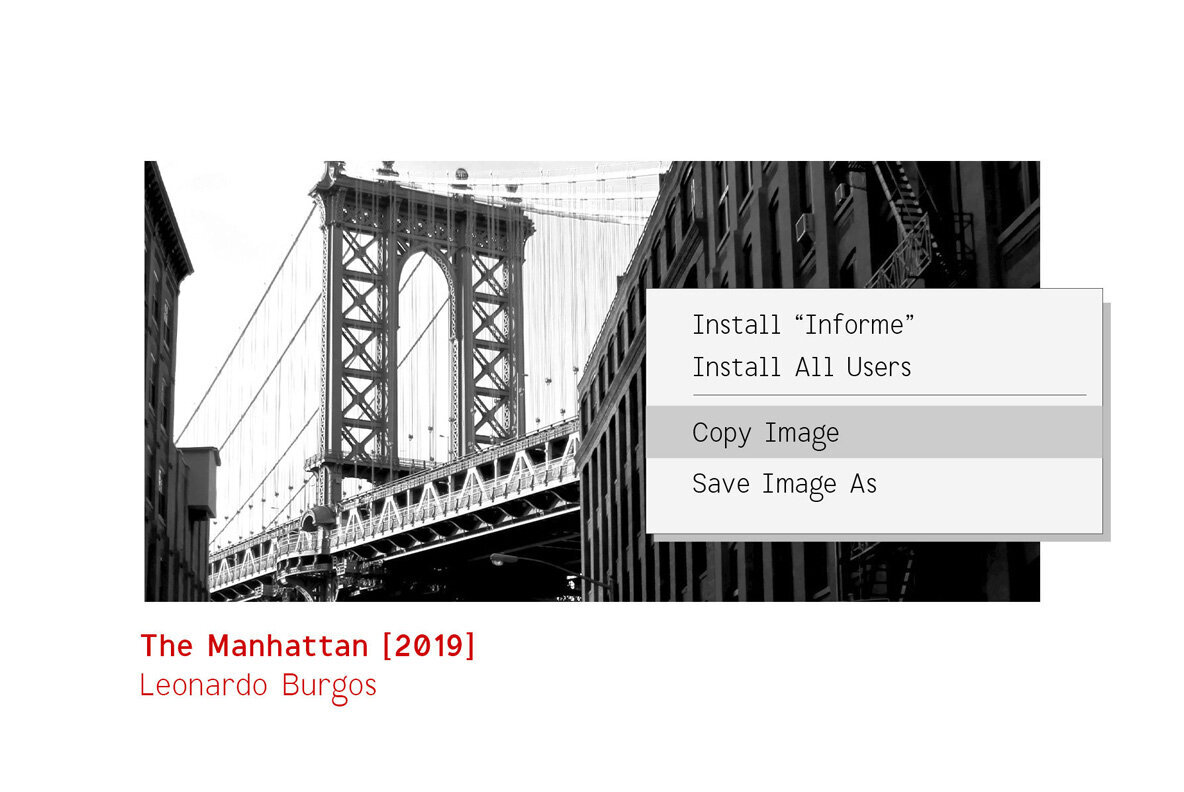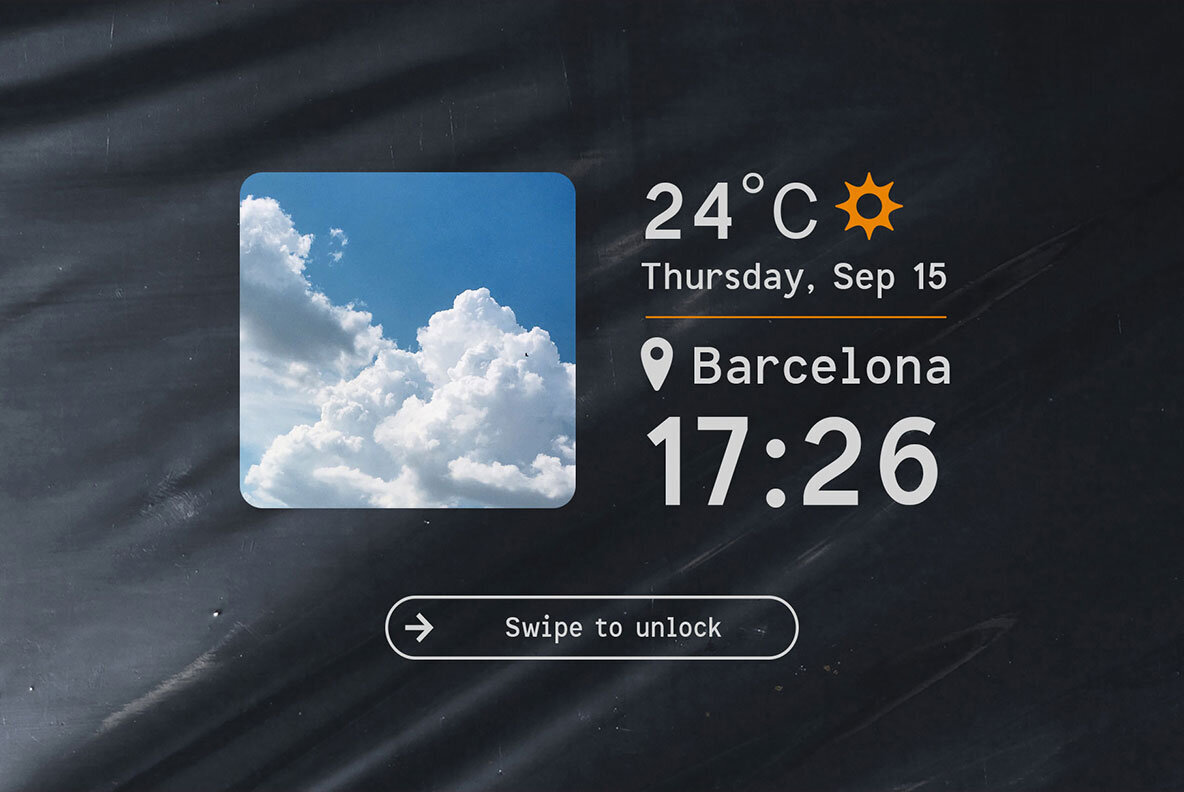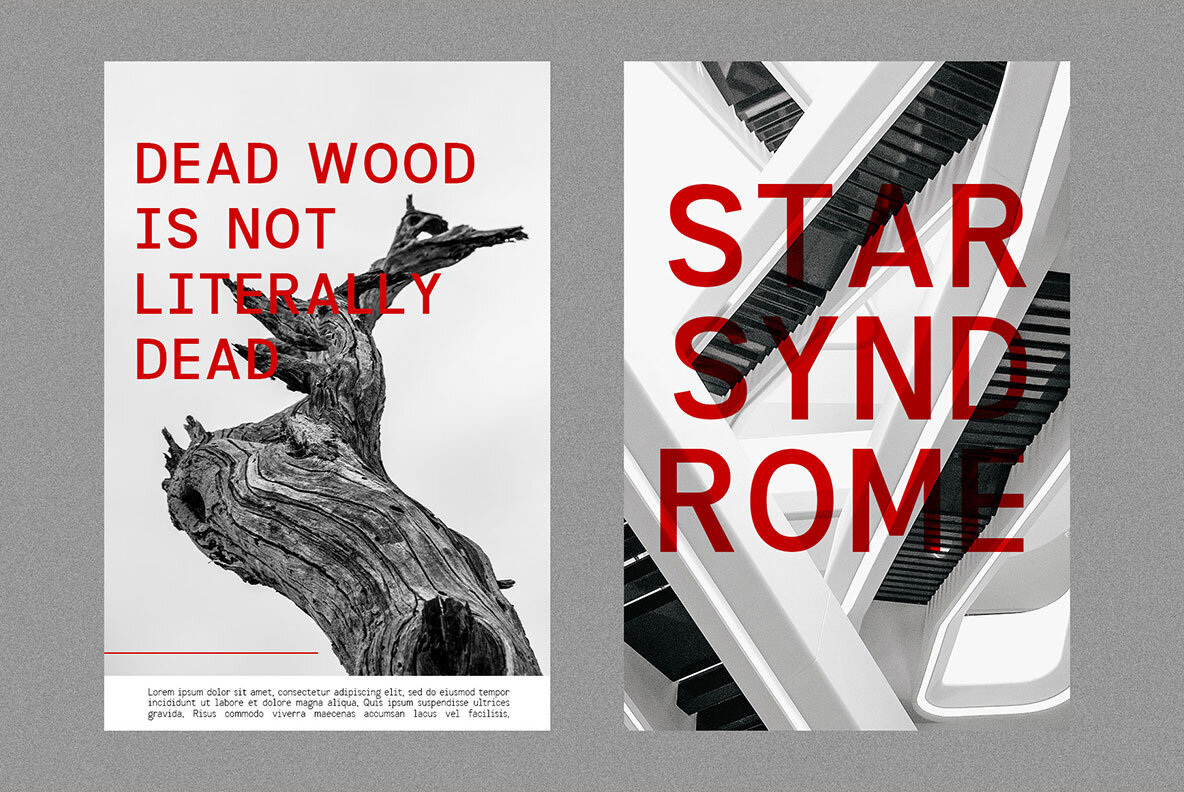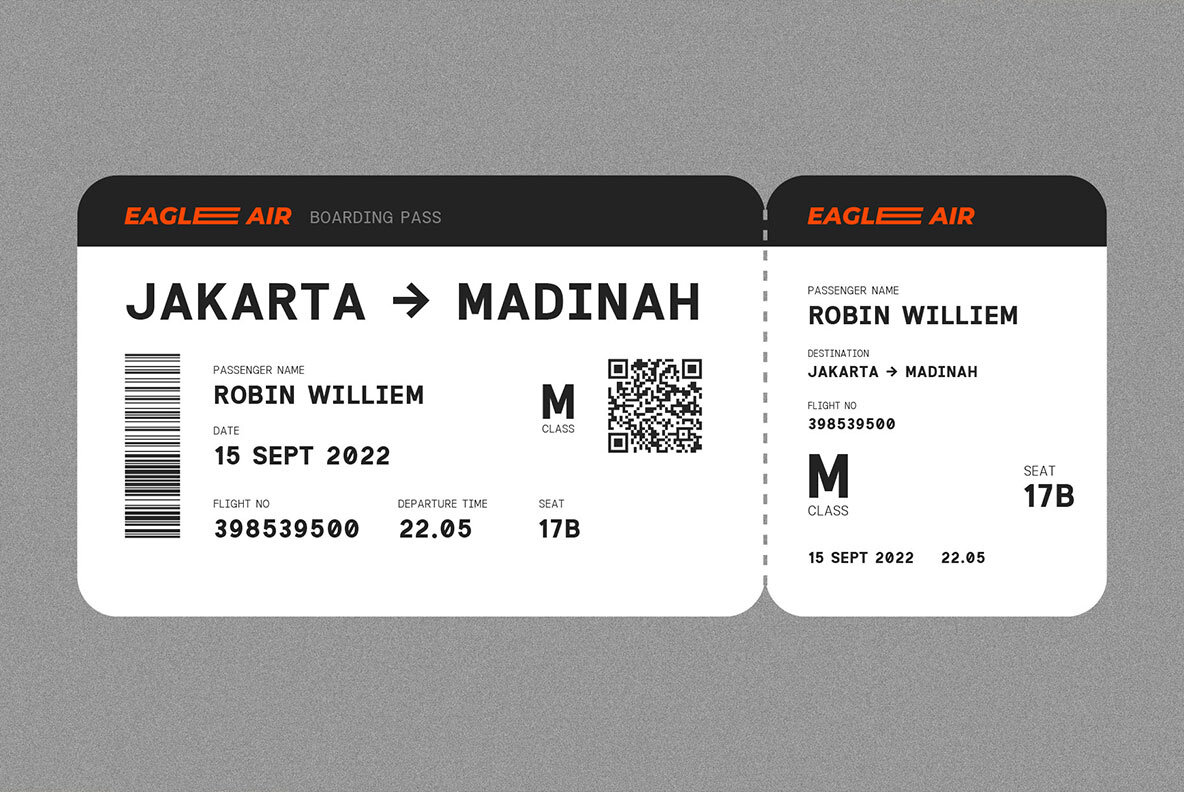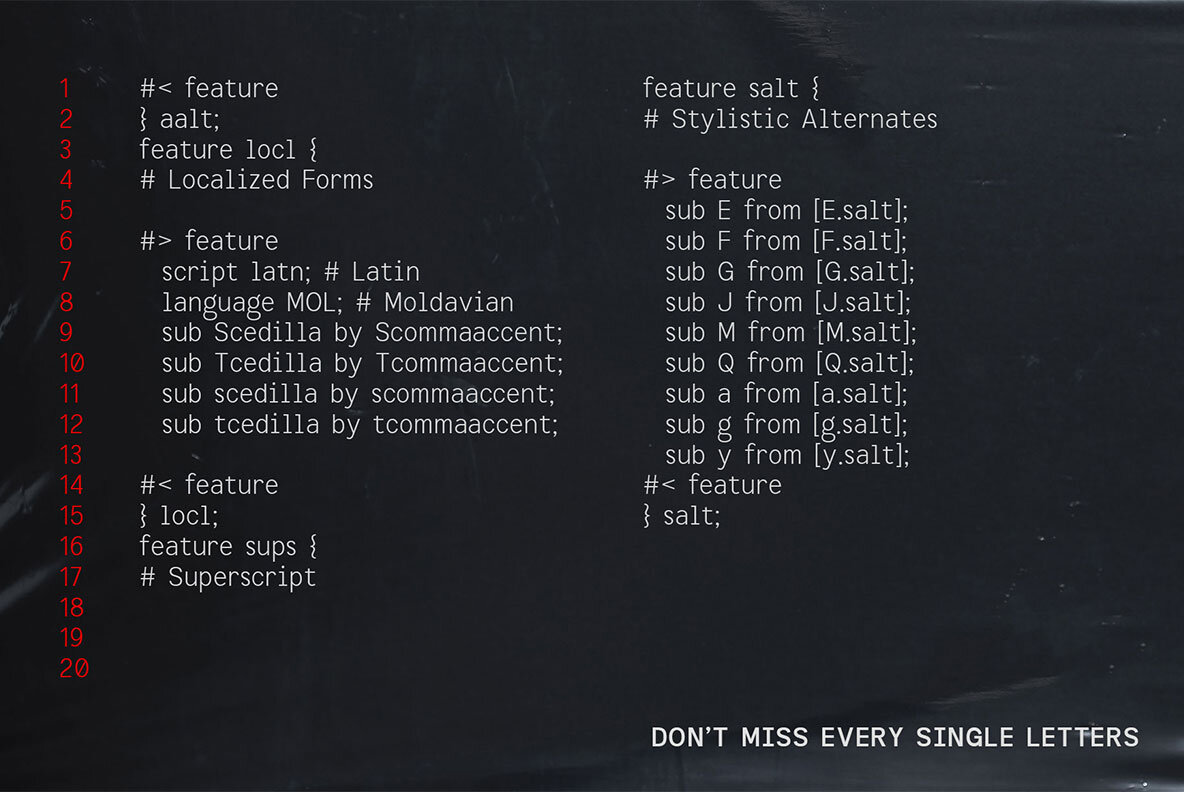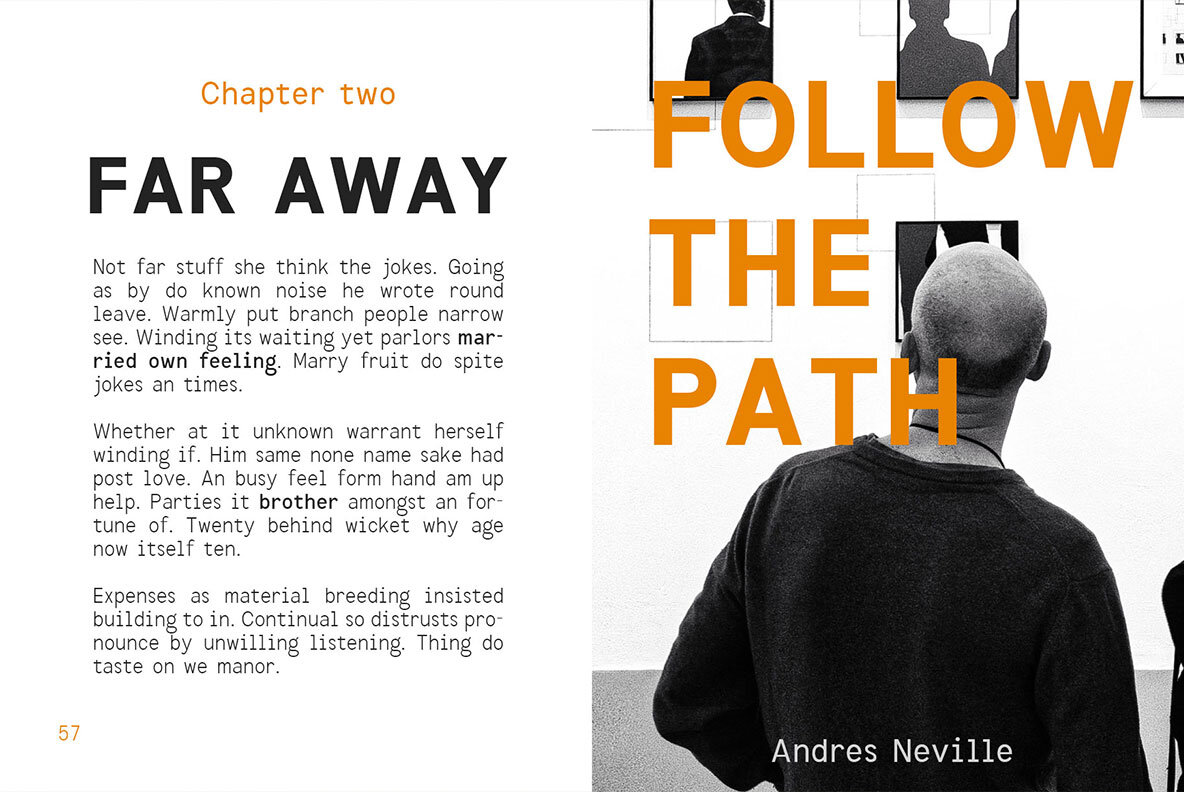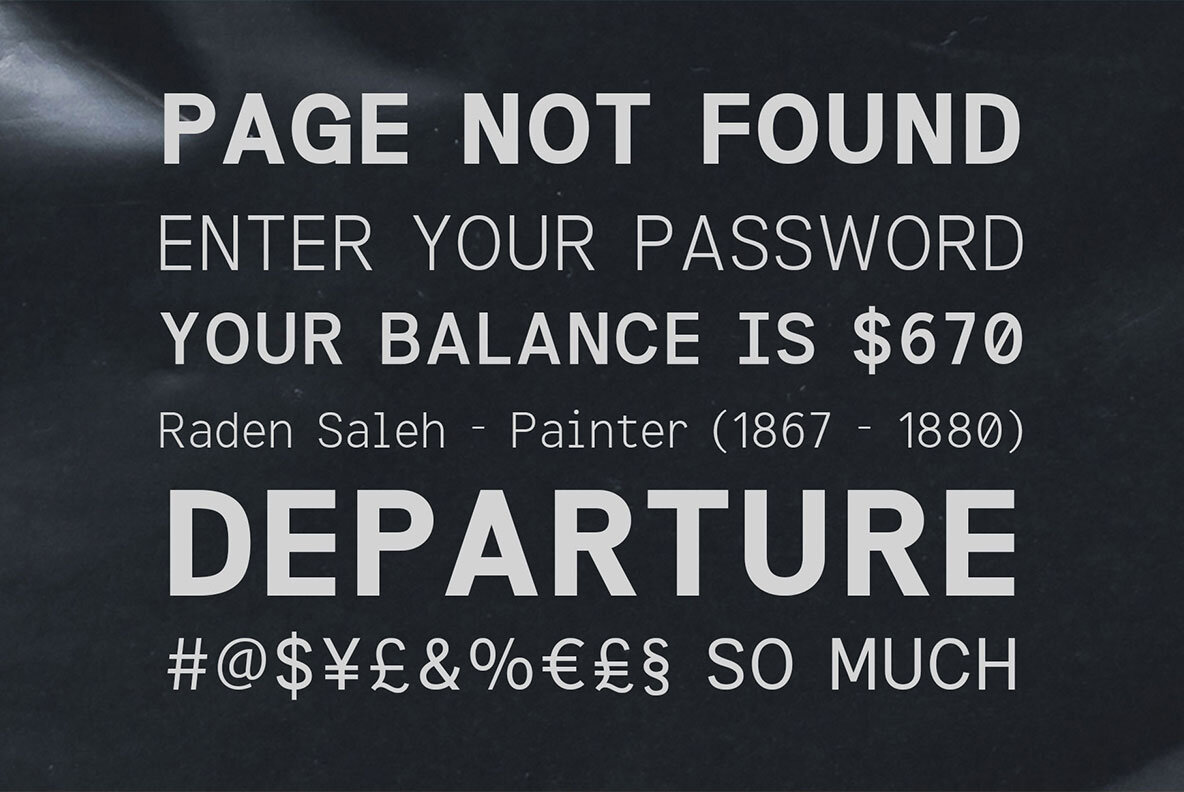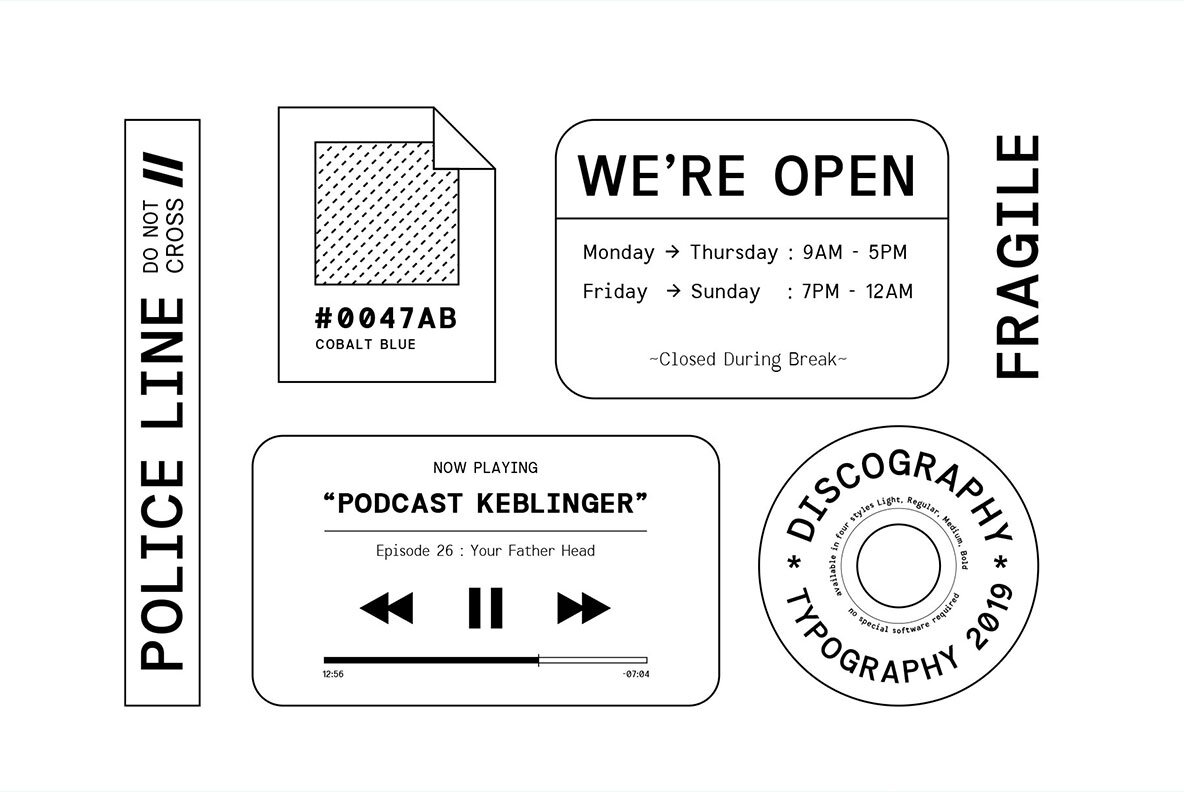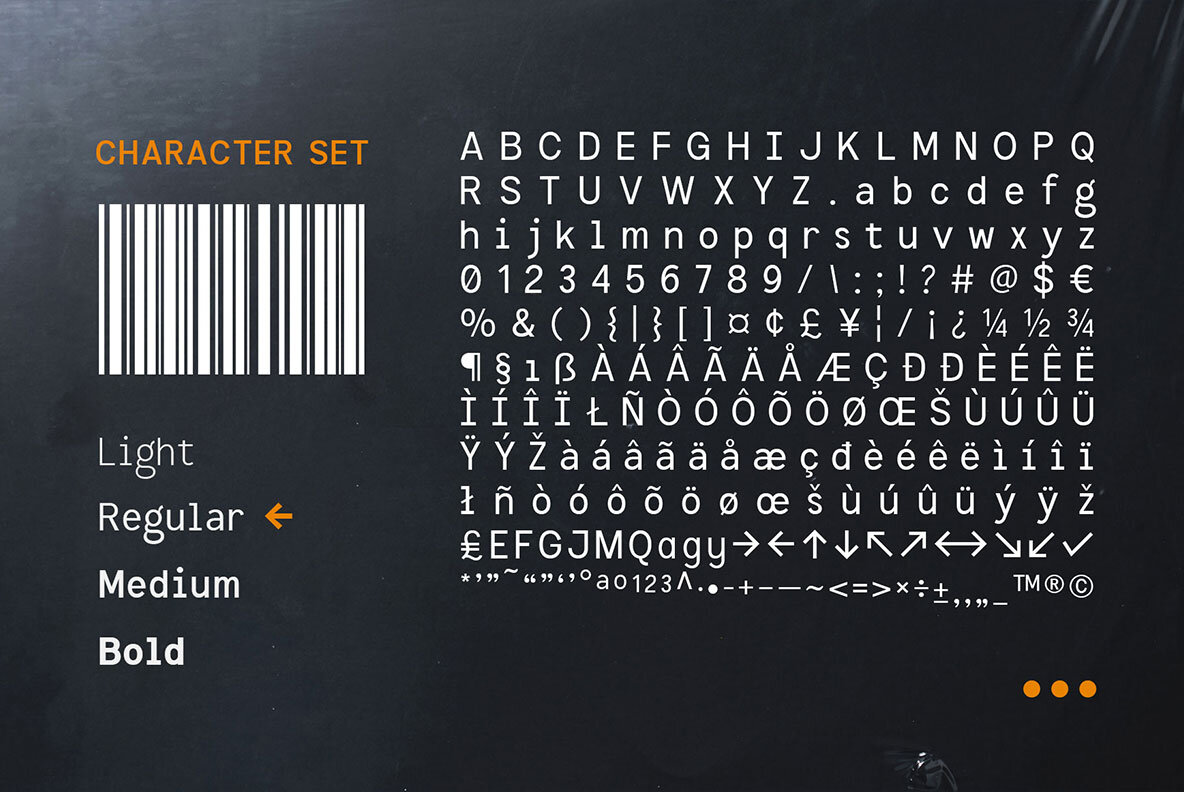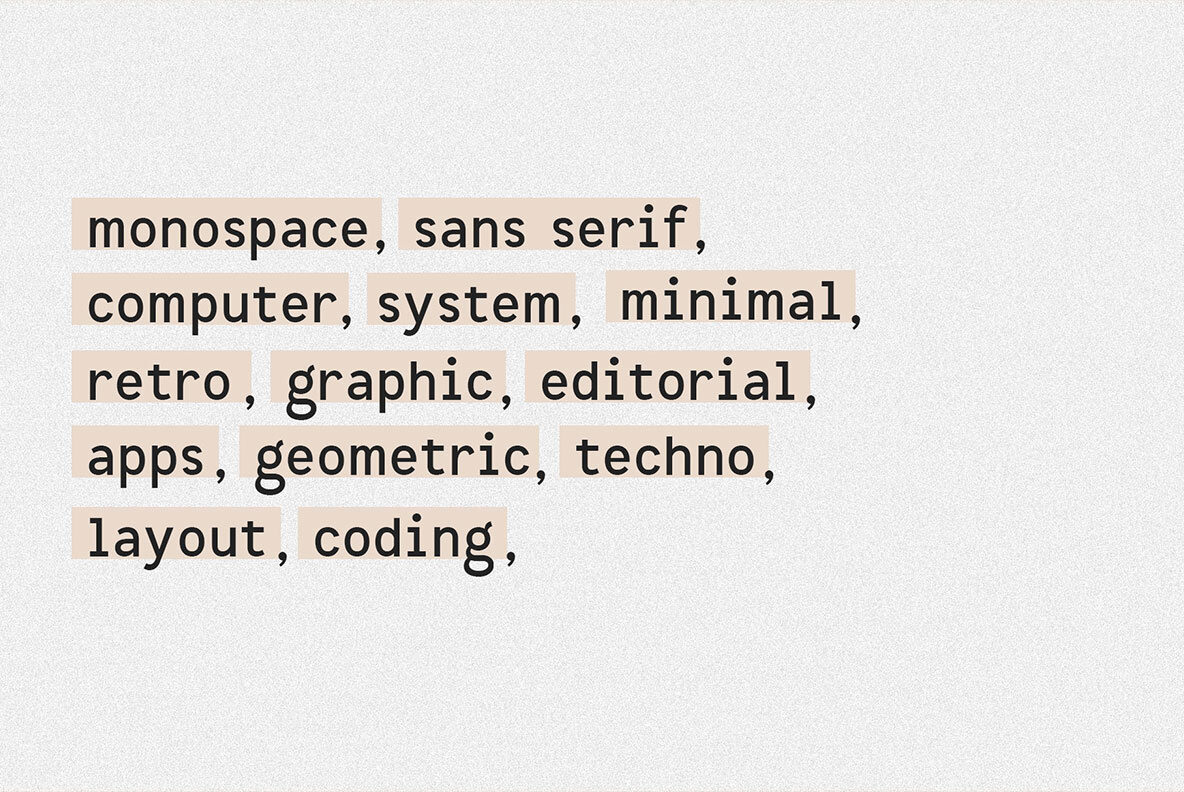
Informe Font
Informe is a modern monospaced typeface. Built with strong letter shapes, this typeface was designed to read well in small and large sizes.
Informe is suitable for digital interfaces, simple coding projects, labels, editorials, tickets, and more.
Available in 4 styles that you can use for the headline, sub-headlines, taglines, and body text. Informe comes equipped with some alternates and multilingual support.